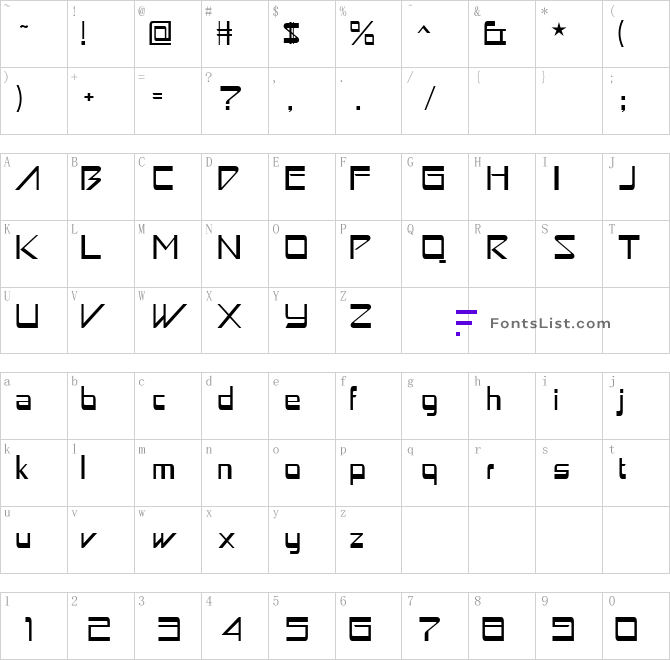
- Font Name:Astron Boy
Astron-Boy.ttf is a very beautiful artistic font, Astron-Boy.ttf is widely used in the design and printing of various books and pictures,Astron-Boy.ttf has a strong visual impact,Astron-Boy.ttf is a commonly used font in newspapers, magazines and books, and is used in posters, e-commerce Poster design, store design, logo design, font design and other fields.Astron-Boy.